17 Slab Serif Fonts for Jerseys, Logos, and DIY Projects
Let’s be honest: some designs just need to carry more weight. When a standard serif feels too delicate and a sans-serif feels too cold, I always turn to Slab Serif Fonts. There is an unmistakable confidence in those thick, blocky “slabs” that commands attention the moment they hit the screen or the fabric.
In this collection, I’ve handpicked my favorite Slab Serif Fonts that bridge the gap between vintage nostalgia and modern grit. Whether you’re looking for that classic varsity energy, a rugged “Wild West” texture, or a clean farmhouse vibe, these typefaces are built to work hard and look even better. Let’s dive into the fonts that will give your next project the bold personality it deserves.
1. Loved Slab Serif Font
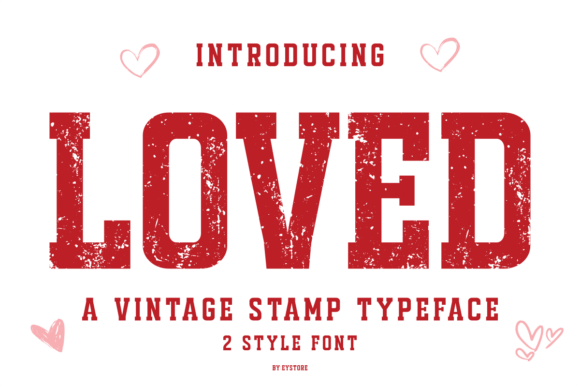
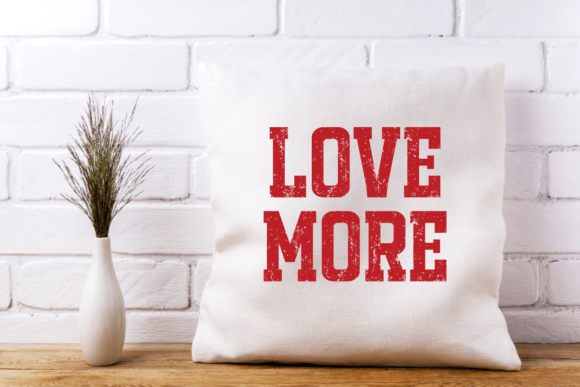
I really have a soft spot for LOVED, a typeface that feels more like a handmade craft than a digital file. In this lineup of Slab Serif Fonts, it stands out because it mimics that nostalgic, slightly imperfect rubber stamp look we all love.
I find it incredibly versatile since it comes in two distinct styles: a gritty, distressed version for a rugged vintage feel and a clean, solid version for a sharper, modern look. It’s a fantastic choice for heartfelt projects like Valentine’s cards, wedding invites, or cozy lifestyle branding for pillows and tote bags. If you’re a print-on-demand seller, this is a must-have for your toolkit.
Why LOVED Works:
- Print-Ready: Bold enough to look great on everything from stickers to hoodies.
- Dual Personality: Switch between “textured” for retro vibes and “solid” for clarity.
- Heartfelt Design: Specifically crafted for romantic quotes and handmade gifts.
2. Varsity Distressed Slab Serif Font
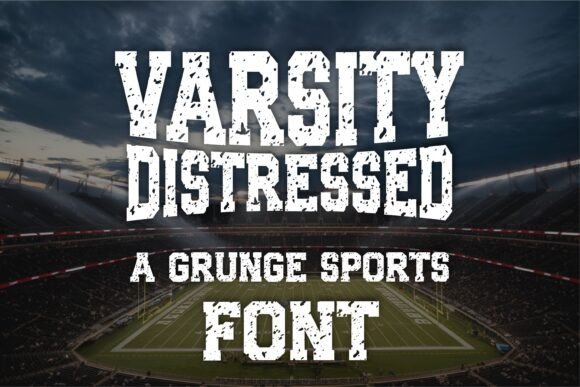
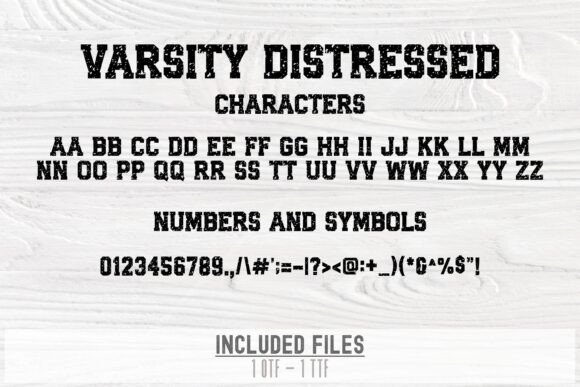
If you’re looking to capture that classic “game day” energy, Varsity Distressed is a top-tier choice for my Slab Serif Fonts list. I love how it leans into that rugged, collegiate aesthetic; it feels like it’s been pulled straight off a vintage locker room wall.
It’s my go-to for sports branding—think custom jerseys, gym apparel, or team logos. Because it’s fully compatible with Canva and Cricut, it’s a dream for DIY crafters and small business owners. The main advantage here is the high-energy impact; those thick, gritty blocks command attention without feeling stiff.
Why I Recommend Varsity Distressed:
- Athletic Vibe: Perfect for football, baseball, or varsity-themed streetwear.
- Visual Punch: The grunge texture adds instant depth to simple layouts.
3. Atletico TTF RHINESTONE Template Slab Serif Font
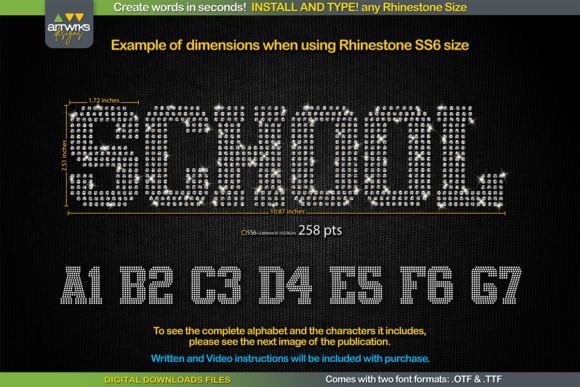
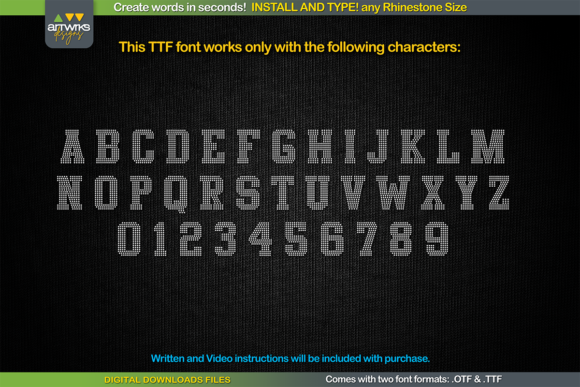
When it comes to specialized Slab Serif Fonts, the RhineStone Template font is a total game-changer for anyone who loves a bit of sparkle. I’m usually wary of complex effects, but this is a “type and go” solution—you just install the font, and your words are instantly filled with perfectly arranged circles ready for rhinestones or heat transfer vinyl.
I see this as the ultimate shortcut for sports moms, cheer squads, or DIY fashionistas. It’s designed specifically to work with Cricut and Silhouette, so you don’t have to manually place every single dot. It’s a bold, functional typeface that turns a tedious design task into a five-second job, making it a standout in any collection of Slab Serif Fonts.
What Makes It Great:
- Instant Templates: No more manual alignment—each letter is pre-filled for hotfix transfers.
- Full Compatibility: Works on everything from Windows and Mac to your iPad and iPhone.
- Pro Results: Perfect for custom t-shirts and high-impact sports merch.
4. Single Slab Serif Font
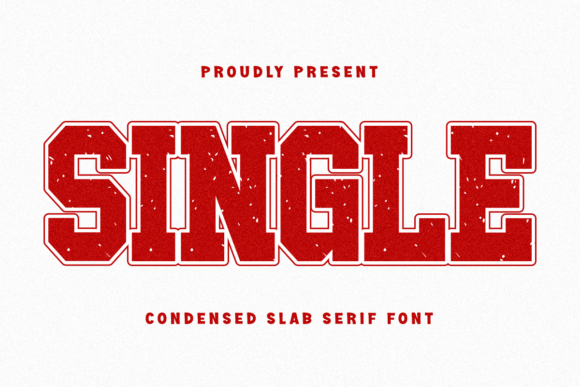
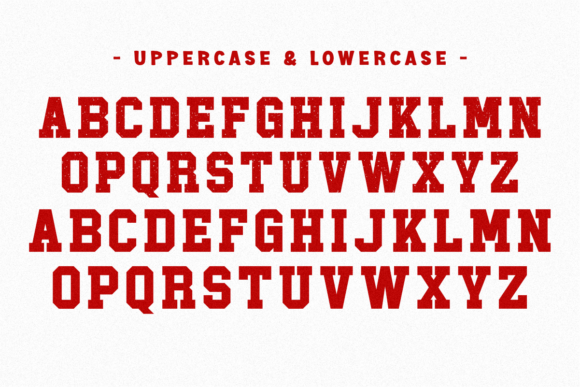
I’ve included Single in this roundup because sometimes you need a typeface that doesn’t just sit on the page—it commands it. As a condensed Slab Serif Font, it’s built for those tight spaces where you still need maximum impact. I’m a huge fan of its “varsity” soul; it has that thick, blocky structure that instantly makes a design feel like a classic piece of athletic history.
What really sells me on this one is the combination of the rugged, distressed texture and the sharp outline style. It’s my top recommendation for high-energy headlines, team logos, or any sports branding that needs an old-school, energetic vibe. It’s an all-caps powerhouse that makes your merch look authentic and established.
Top Features of Single:
- Condensed Build: Perfect for bold headlines where horizontal space is limited.
- Athletic Grit: The vintage texture gives it a lived-in, “champion” feel.
- All-Caps Energy: Designed specifically for high-impact branding and promotional materials.
5. Football Jersey Slab Serif Font
When I’m looking for that quintessential “Friday Night Lights” look, Football Jersey is exactly what I reach for. It’s one of those Slab Serif Fonts that strikes a perfect balance between a modern, clean aesthetic and a timeless sports classic. Each uppercase letter feels solid and trustworthy, which is exactly the vibe you want for a team identity.
I love using this one for sublimation projects—think custom t-shirts, mugs, or even bold comic titles. The letterforms are “charming” yet incredibly strong, making them easy to read from a distance. It’s a no-nonsense typeface that doesn’t overcomplicate things, giving you a professional finish whether you’re designing for a local club or a high-energy animation.
Why I Love This Font:
- Crystal Clear: High legibility makes it perfect for fast-moving sports visuals.
- Modern Classic: A cleaner, sharper take on the traditional athletic slab.
- Versatile: Works across everything from tote bags to bold social media headlines.
6. Rough Cowboy Slab Serif Font
If you want to bring some “Wild West” grit to your project, Rough Cowboy is the heavy hitter you need. Among my favorite Slab Serif Fonts, this one stands out for its raw, unapologetic personality. It features those iconic, thick serifs we associate with vintage ranch signs and old-school saloons, but with a worn-down texture that feels genuinely rustic.
I’d personally use this for any project that needs a bit of dirt under its fingernails—think country-style branding, outdoor adventure logos, or even bold t-shirt prints. It’s got a “tough as leather” vibe that’s perfect for sublimation or posters. The advantage here is the instant character it adds; you don’t need to add extra filters when the font already tells such a strong story.
Why Rough Cowboy Stands Out:
- Authentic Grit: The distressed texture looks great on apparel and wooden signs.
- Western Soul: Perfect for ranching, rodeo, or rustic-themed branding.
- Commanding Presence: Strong slab serifs ensure your message isn’t missed.
7. Old Typewriter Slab Serif Font
There is something incredibly cozy and nostalgic about Old Typewriter. While many Slab Serif Fonts focus on being loud and athletic, this one leans into that rhythmic, mechanical charm of an old Smith Corona. It’s got that slightly uneven, ink-on-paper feel that instantly gives a project a “story” to tell.
I think it’s a brilliant choice for thematic designs—think detective-style “forensics” layouts, retro newspaper headers, or even minimalist wall art. It’s “cute” in a sophisticated way, making it perfect for zines, magazines, or t-shirts where you want a handmade, tactile vibe. If you want your text to feel like it was typed by hand rather than rendered by a computer, this is your font.
Why I Recommend Old Typewriter:
- Retro Realism: Captures the authentic soul of mechanical type.
- Storytelling Vibe: Great for journals, scrapbooking, and vintage-themed posters.
- Unique Texture: Adds a delicate, intellectual touch compared to bolder slabs.
8. College Block 2.0 Slab Serif Font
I’m really impressed with how College Block 2.0 has evolved. In the world of Slab Serif Fonts, this is the “honor student” that just got a major upgrade. By making the letters 30% taller, the designers have created a typeface that’s practically begging to be arched across a university sweater or a heavy-duty varsity jacket.
What makes this version a winner for me is the massive expansion in language support. It now includes Cyrillic and European accents, which is a huge plus if you’re designing for a global audience. It’s clean, it’s authoritative, and it works flawlessly for everything from high-resolution web graphics to bold, screen-printed logos. If you need that classic campus look but with modern flexibility, this is it.
Why Upgrade to College Block 2.0:
- Extra Height: The 30% taller profile gives your designs a more “premium” athletic feel.
- Global Support: Includes Cyrillic and a wide range of international accents.
- Polished Design: Redesigned characters for a smoother, more professional finish.
9. Farmhouse Vintage Slab Serif Font
I absolutely adore Farmhouse Vintage, a typeface that brings a warm, “home-sweet-home” aesthetic to my Slab Serif Fonts collection. It’s got that rustic, lived-in charm that reminds me of hand-painted signs and country kitchens. It isn’t just a font; it’s a whole mood for projects that need to feel cozy and timeless.
What I find most helpful is the massive variety of file formats it comes with—SVG, DXF, and EPS included—which makes it a dream for anyone using a Cricut or Silhouette. Whether you’re crafting wedding invitations, farmhouse-style wall decals, or custom planner stickers, its clean yet organic serifs add a touch of handcrafted elegance that’s hard to replicate.
Why Farmhouse Vintage is a Must-Have:
- Craft-Ready: Comes with every format you need for vinyl cutting and professional printing.
- Warm Aesthetic: Perfectly captures that popular rustic-chic “farmhouse” look.
- Limitless Potential: Ideal for everything from birthday decorations to personalized mugs.
10. Seal Bold Rhinestone Template TTF Slab Serif Font
If you’ve ever tried to manually align hundreds of tiny circles for a “bling” design, you’ll know why I think this Rhinestone Template TTF is a total lifesaver. Within my list of Slab Serif Fonts, this one is the ultimate utility player. Instead of tedious manual placement, you just install the font and type; the letters are instantly “pre-filled” with perfect rhinestone patterns
I find this incredibly efficient for anyone making cheer uniforms, custom dance apparel, or high-end heat transfer vinyl projects. It’s a bold, functional typeface that plays nice with Cricut, Silhouette, and even your iPad. It takes the guesswork out of sizing and spacing, allowing you to create professional crystal hot-fix stencils in a matter of seconds.
Why I Recommend This Template:
- Instant Stencils: Each letter is perfectly arranged for rhinestones or vinyl trapping.
- Universal Compatibility: Works seamlessly across Windows, Mac, and mobile design apps.
- Pro-Level Bling: Ideal for sports merch, personalized t-shirts, and “glam” branding.
11. Typedeer Mono Slab Serif Font
I have a real soft spot for TypedeerMono, because it captures that specific, tactile soul of a rubber stamp better than almost any other Slab Serif Fonts I’ve come across. It’s not just “distressed”—it actually mimics the varying ink saturation and irregular edges you get when you press a real stamp onto paper.
I find it’s a brilliant choice when you want to inject some “humanity” into a digital design. It’s got this nostalgic, rugged charm that works wonders for archival-style posters, unique branding, or any composition where you want to break away from “too-perfect” typography. If you’re looking for a display font that feels truly authentic and memorable, this one is a gem.
Why TypedeerMono is Special:
- Authentic Texture: Perfectly replicates the look of uneven ink and rubber stamp imprints.
- Nostalgic Vibe: Ideal for vintage documents, retro labels, and “top secret” forensic styles.
- Visual Grit: The irregular edges add immediate character to any layout without extra work.
12. College ABCD Slab Serif Font
If you’re looking for that “classic campus” look that never goes out of style, College ABCD is the quintessential choice. I’ve included it in my Slab Serif Fonts lineup because it’s the backbone of sports design—it’s bold, it’s blocky, and it immediately screams team spirit.
I personally love how versatile this one is for DIY projects. Whether you’re using a Cricut for a personalized hoodie or Canva for a game-day poster, it holds its own beautifully. It’s a high-energy typeface that’s just as at home on a varsity baseball jersey as it is on a motivational gym banner. If your goal is to create something that feels established and “official,” this is your heavy hitter.
Why I Recommend College ABCD:
- Authentic Athleticism: Perfectly captures the traditional collegiate and varsity aesthetic.
- Craft-Friendly: Optimized for sublimation and cutting machines like Silhouette.
- Bold Impact: The thick slab serifs make it incredibly easy to read on jerseys and banners.
13. Famous Grunge Slab Serif Font
I have a real soft spot for Famous Grunge because it’s a total time machine. It’s one of the few Slab Serif Fonts I’ve found that manages to capture the raw energy of the 70s and 90s without looking messy. It’s thick and authoritative, but that “vintage twist” gives it a soul that traditional, sterile fonts just can’t touch.
I think this is a brilliant pick for alternative logos or book covers where you want to leave a lasting impression. It’s a versatile sublimation font that’s clean enough for easy reading on t-shirts and apparel, but gritty enough to give a magazine layout some serious edge. Plus, the multilingual support for Eastern European languages makes it a reliable tool for my international design projects.
Why Famous Grunge is a Standout:
- Nostalgic Grit: Perfectly channels the authentic “grunge” aesthetic of past decades.
- Multilingual: Seamlessly integrates with Eastern European characters.
- Bold Utility: Thick, readable letterforms that work for both print and digital packaging.
14. Planner Highland Slab Serif Font
I really enjoy working with Planner Highland because it breaks the stereotype that Slab Serif Fonts have to be “tough” or “heavy.” Instead, this typeface is incredibly friendly and approachable. It has these playful curves and rounded edges that give off a warm, whimsical vibe without sacrificing a bit of clarity.
It’s my top pick for projects that need to feel inviting—think children’s books, birthday party invitations, or a boutique brand identity that wants to feel “sweet” rather than “corporate.” It’s got a distinct personality that radiates charm, making it a refreshing change of pace from more rigid athletic slabs. If you want your design to feel like a friendly smile, this is the one.
Why I Recommend Planner Highland:
- Whimsical Style: Soft, rounded edges make it feel approachable and kind.
- Highly Legible: Despite its playful nature, the structure is clean and easy to read.
- Warm Personality: Perfect for lifestyle branding, planners, and stationery.
15. Texas Slab Serif Font
When I want to channel that expansive, “open range” spirit, Texas is the typeface I go for. Among all the Slab Serif Fonts in this list, this one feels the most like a true piece of American history. It’s a classic Western-style font that perfectly captures that rugged cowboy culture without feeling like a caricature.
I find it’s a total chameleon for vintage projects—it fits into retro themes seamlessly. Whether I’m working on a bold book cover, a vintage-style magazine spread, or even a cartoon production that needs an old-school touch, Texas delivers that authentic, frontier weight. It’s got a “tough but polished” look that makes it a reliable staple for any designer’s toolkit.
Why Texas is a Classic:
- Frontier Spirit: Perfectly embodies the wild west and American cowboy aesthetic.
- Versatile Retro: Ideal for everything from comic magazines to rustic posters.
- Timeless Structure: Strong, recognizable slab serifs that work across print and digital media.
16. Simple People Slab Serif Font
I really love the “happy-go-lucky” energy of Simple People. In this collection of Slab Serif Fonts, it stands out as the friendly giant—it’s thick, chunky, and unashamedly bold. The characters have this wide, generous footprint that makes any headline feel grounded yet approachable.
Whenever I need to grab someone’s attention without being overly aggressive, this is the font I pull out. It’s perfect for eye-catching t-shirt typography, banners, or product labels where you want your message to pop. Its simplicity is its greatest strength; those heavy serifs give it a playful weight that’s just as effective on a lemonade stand sign as it is on a modern streetwear brand.
Why Simple People Works:
- Chunky Impact: Thick letterforms that ensure your headlines are impossible to ignore.
- Friendly Vibe: A playful take on the slab serif that feels welcoming and modern.
- Layout Friendly: Wide characters that fill up empty space beautifully on posters and banners.
17. Vintage Capital Slab Serif Font
I’ve saved one of the most textured options for last. Vintage Capital is a powerhouse among Slab Serif Fonts for anyone who craves that “weathered by time” look. It’s thick, bold, and carries a rough, gritty texture that makes it feel like it’s been stamped onto a piece of old reclaimed wood.
I find this font incredibly reliable for branding projects that need to feel established and sturdy. It’s the kind of typeface you add to a label or a greeting card when you want it to feel authentic and handmade rather than mass-produced. It’s confident, rugged, and—honestly—the results always manage to surprise me with how much personality they add to a simple layout.
Why I Recommend Vintage Capital:
- Heavyweight Texture: The rough, thick lettering adds instant depth to your designs.
- Crafting Versatility: Perfect for everything from vintage labels to bold apparel branding.
- Confident Style: A bold choice for designers who want their work to feel grounded and authentic.
Conclusion
Choosing the right typography is often the secret ingredient that turns a “good” design into a “great” one. In this roundup, we’ve explored the incredible range of Slab Serif Fonts, from the high-energy grit of varsity-style blocks to the cozy, nostalgic charm of vintage typewriter stamps. Whether you’re building a brand, prepping a Cricut project, or designing sports gear, there is a slab serif here that speaks your language.
What I love most about Slab Serif Fonts is their inherent confidence. They don’t just sit on the page—they make a statement. I hope this guide helps you find that perfect balance of weight, texture, and personality for your next creative venture.
Quick Guide to My Top Picks:
- For Sports & Spirit: Varsity Distressed or College Block 2.0.
- For Handmade Charm: LOVED or Farmhouse Vintage.
- For Rough & Rugged Vibes: Rough Cowboy or Texas.
- For Specialty Crafting: Rhinestone Template (the ultimate time-saver!).
So, go ahead and grab the one that resonates most with your vision—your next masterpiece is just a few keystrokes away with these incredible Slab Serif Fonts.